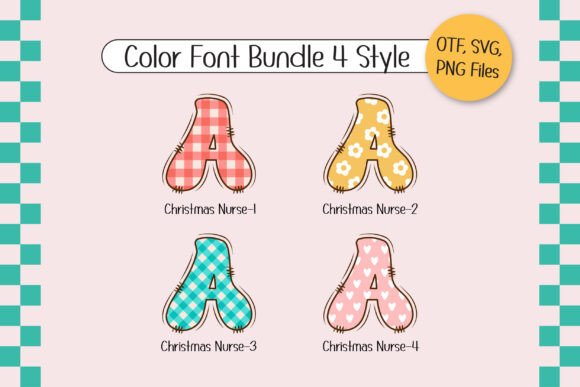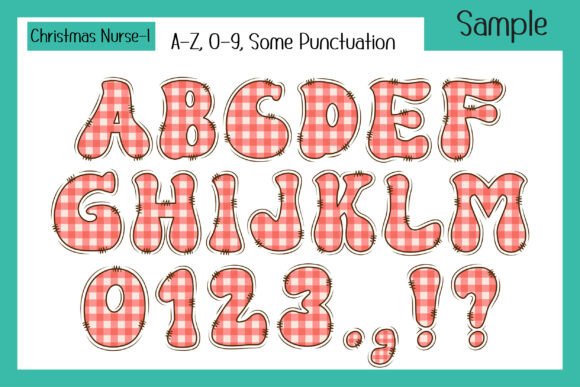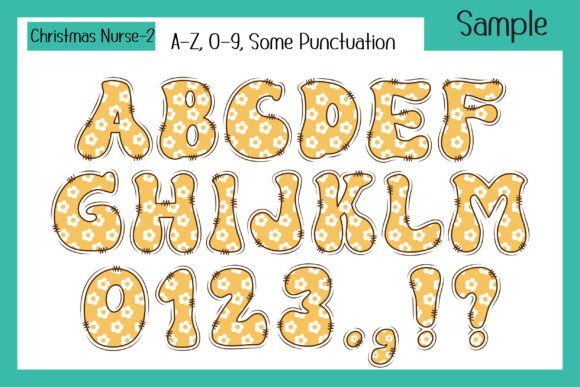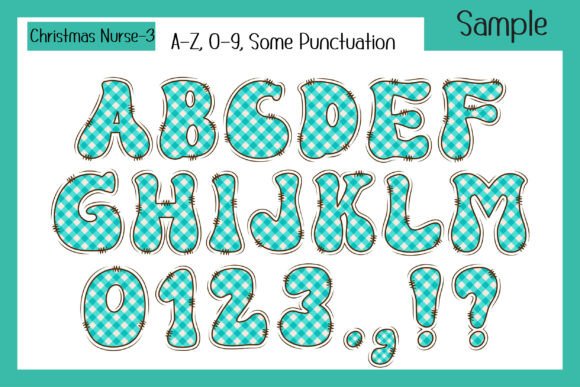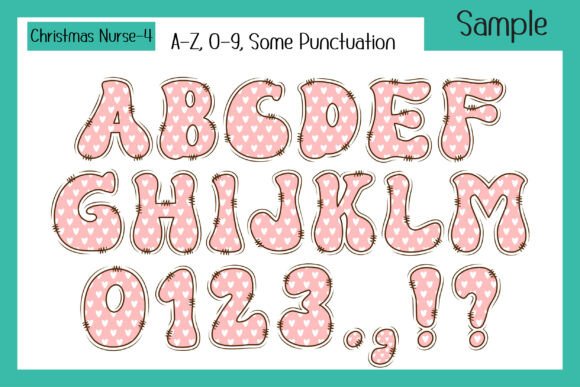
Introducing Christmas Nurse Font: A Groovy Holiday Font for Nursing Professionals
Are you looking for a unique and festive font to celebrate the nursing profession during the holiday season? Look no further than the Christmas Nurse Font! This groovy-style font combines the cheer of Christmas with fun nurse design patterns, making it perfect for a variety of holiday-themed projects.
A Playful and Whimsical Font
The Christmas Nurse Font features sweet retro colors and a playful design that’s sure to add a touch of whimsy to your holiday projects. The font is available in four theme color versions, each with its own unique charm. Whether you’re creating nurse sublimation projects, DIY nurse crafts, or nurse party decorations, this font is sure to impress.
Includes Bonus Clip Arts
But that’s not all! The Christmas Nurse Font package also includes 22 bonus matching clip arts, giving you even more creative possibilities. Use these clip arts to add an extra touch of festivity to your projects, or combine them with the font to create truly unique designs.
The Christmas Nurse Font is incredibly versatile, making it perfect for a wide range of projects, including:
- Nurse sublimation projects
- DIY nurse crafts
- Nurse party decorations
- T-shirts and other apparel
- Branding and marketing materials
- Custom DIY craft projects
- Personalized names and gifts
Add a Professional Touch to Your Designs
While the Christmas Nurse Font is playful and whimsical, it’s also designed to add a professional touch to your holiday-themed nurse designs. Whether you’re creating materials for a nursing professional or simply want to add a touch of festivity to your craft projects, this font is sure to impress.
Get Creative with Christmas Nurse Font
With the Christmas Nurse Font, the creative possibilities are endless. Here are a few ideas to get you started:
- Create custom nurse party decorations, including banners, garlands, and gift tags
- Design personalized nurse gifts, such as mugs, tote bags, and aprons
- Make custom nurse sublimation projects, including t-shirts, mugs, and water bottles
- Develop nurse-themed craft projects, such as ornaments, cards, and gift boxes
The Christmas Nurse Font is a unique and festive font that’s perfect for celebrating the nursing profession during the holiday season. With its playful design, sweet retro colors, and bonus clip arts, this font is sure to add a touch of whimsy and professionalism to your holiday-themed nurse designs. So why wait? Download the Christmas Nurse Font today and get creative!